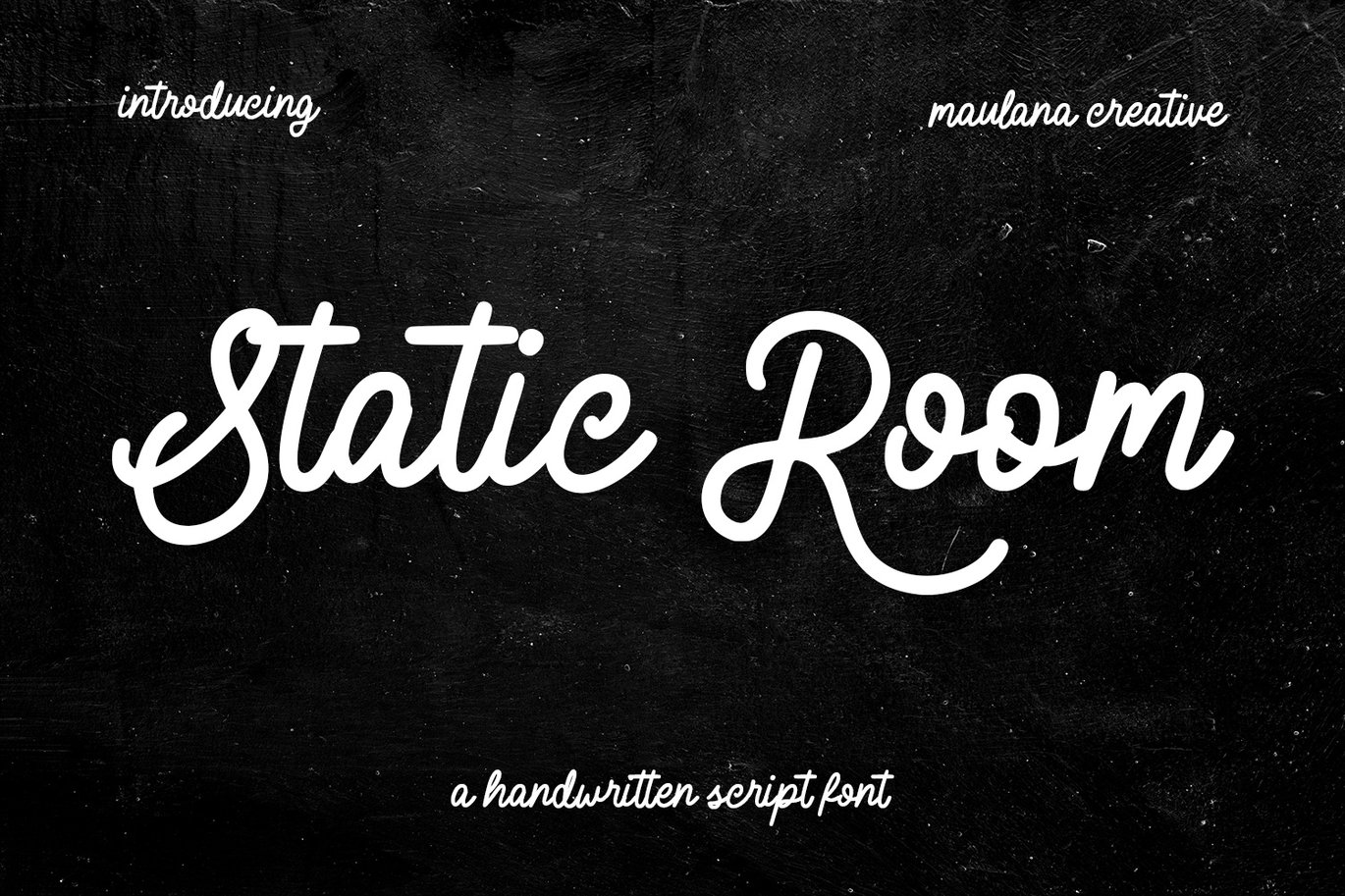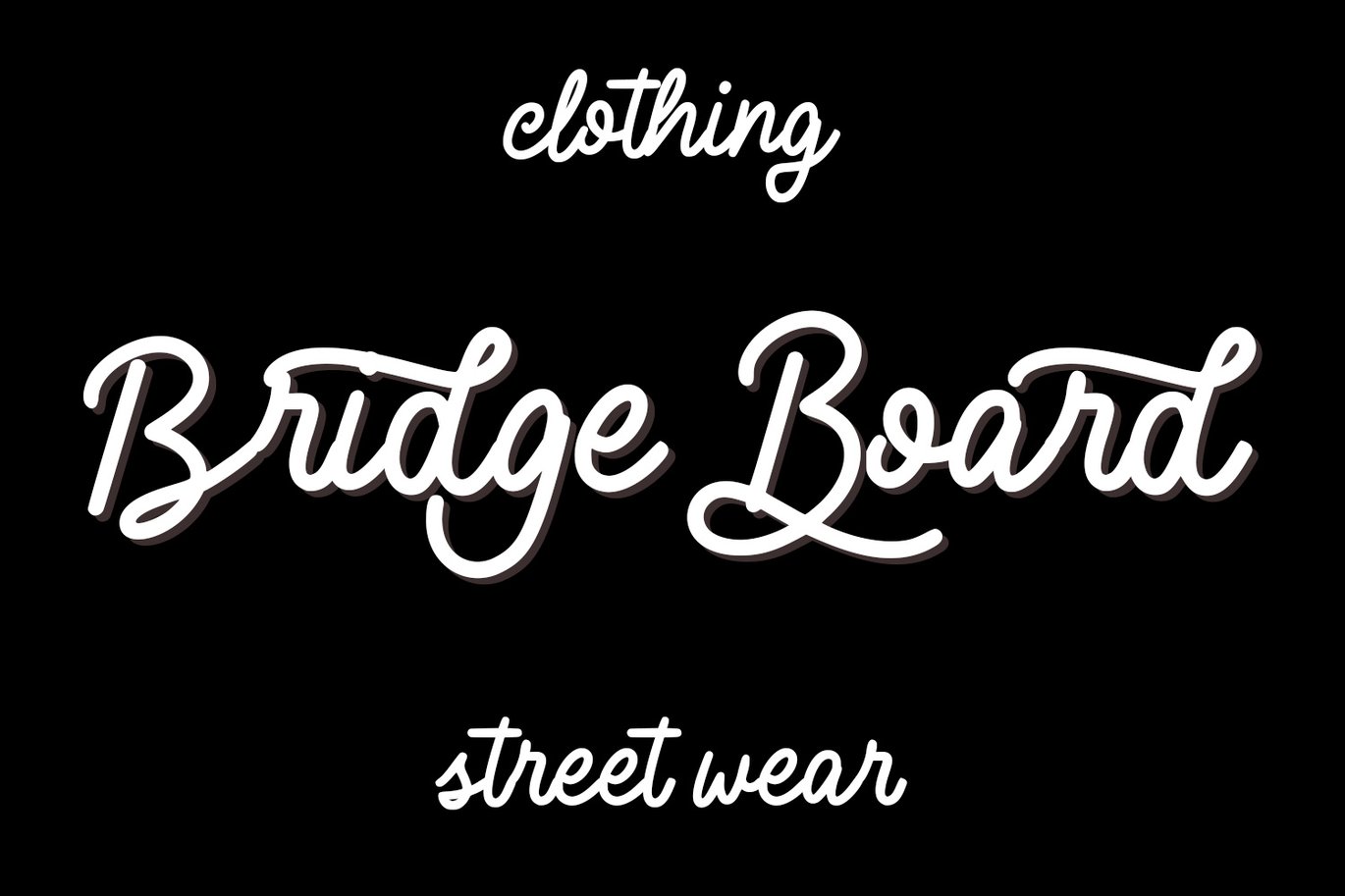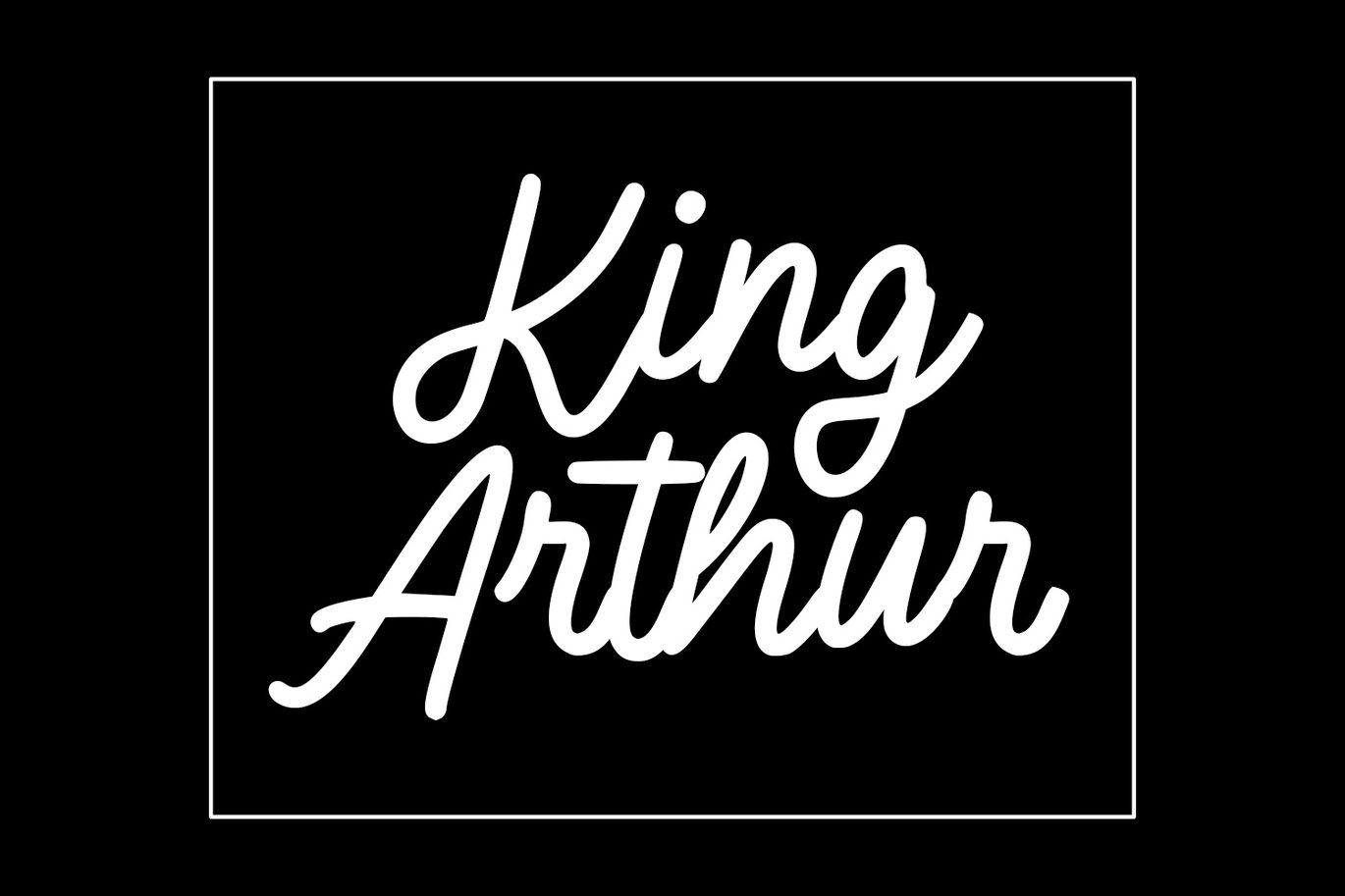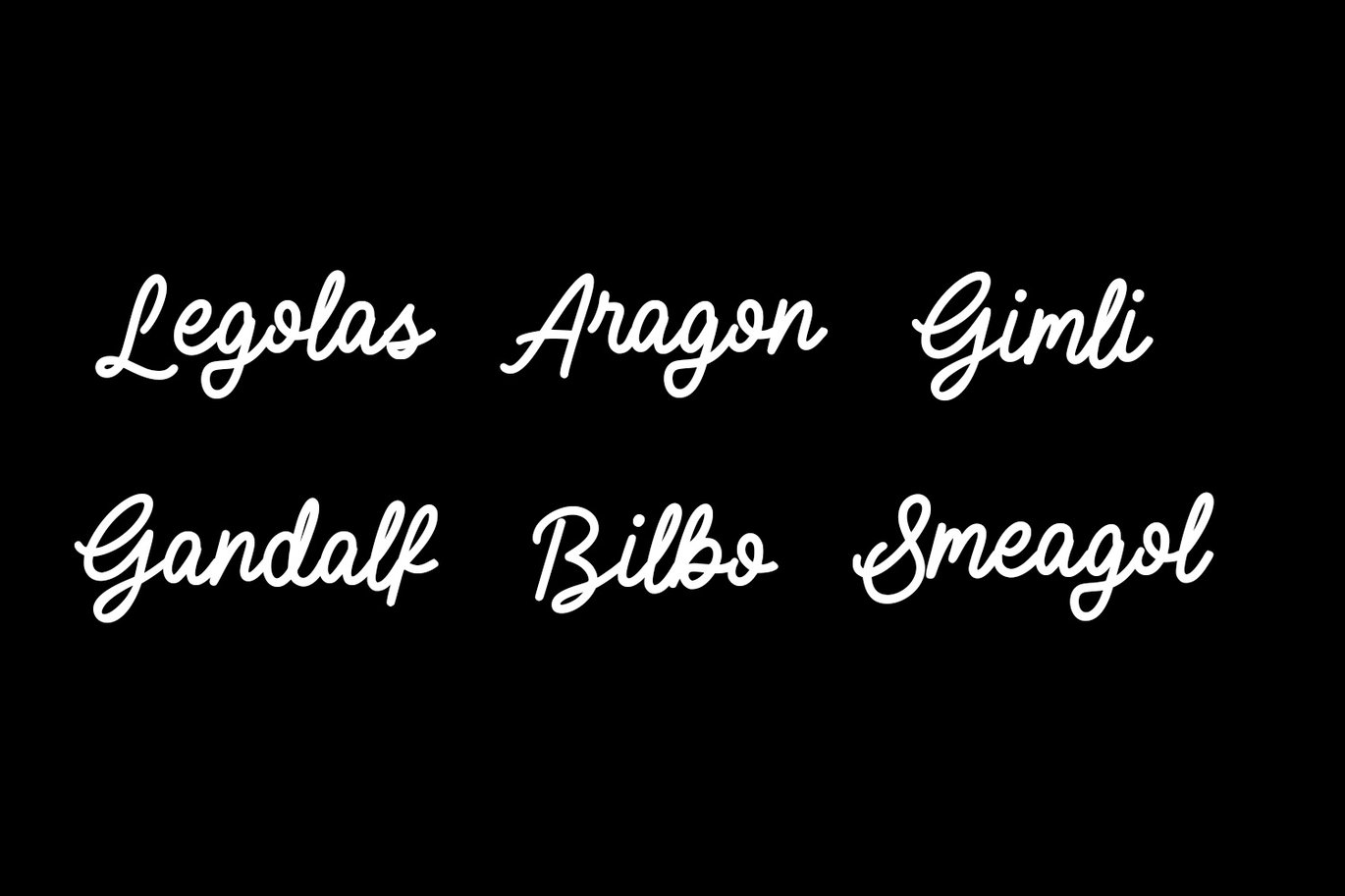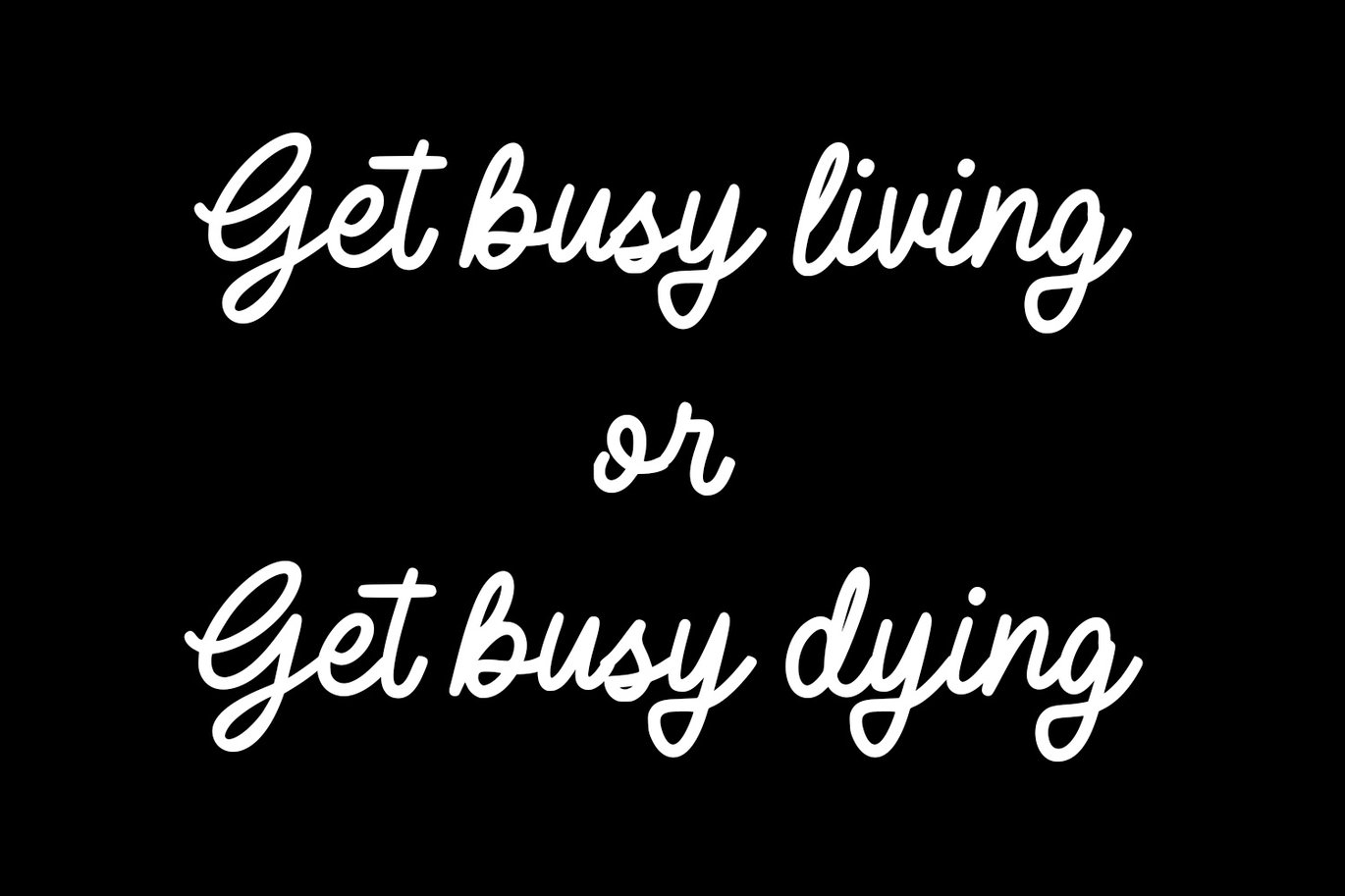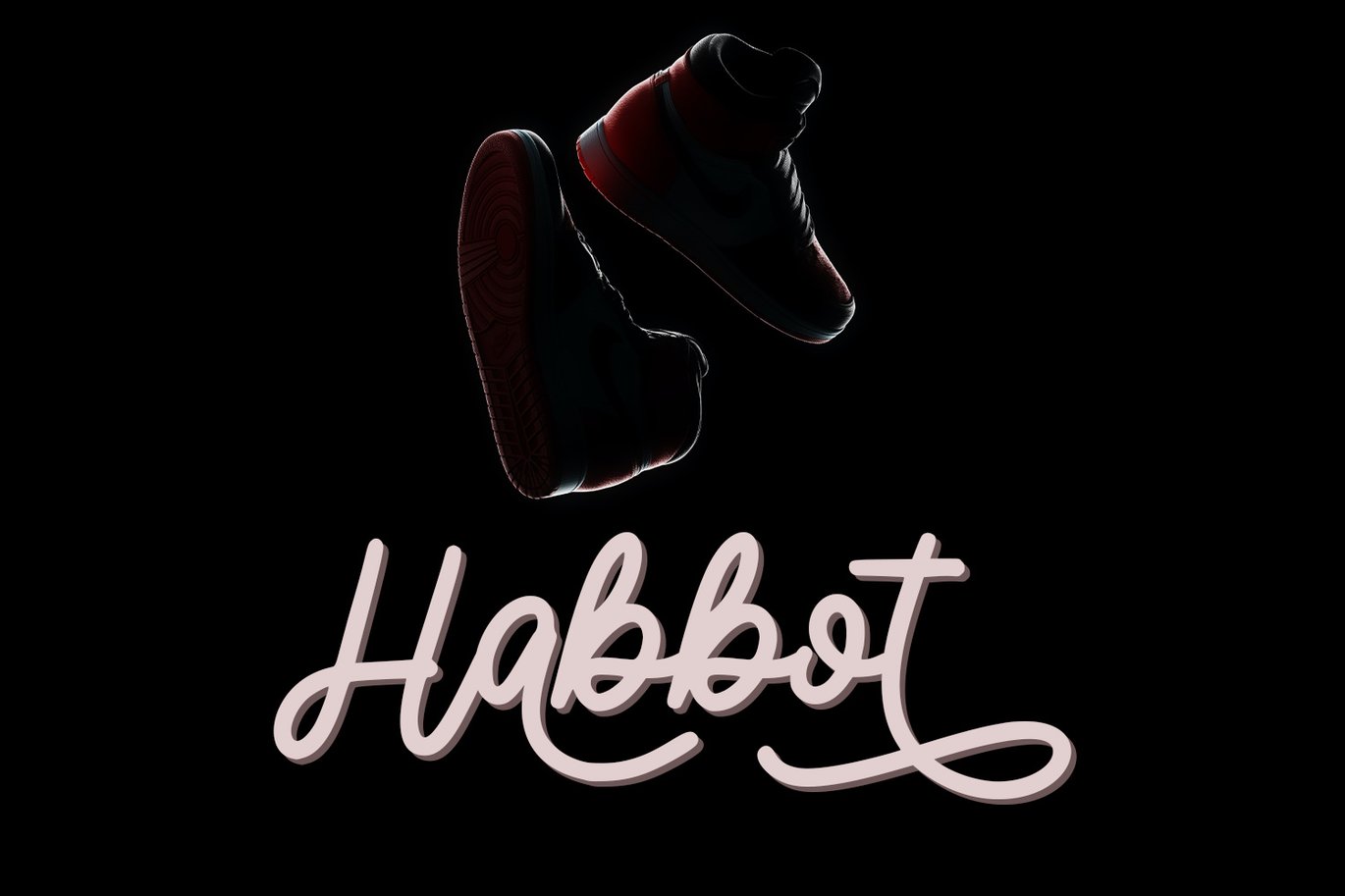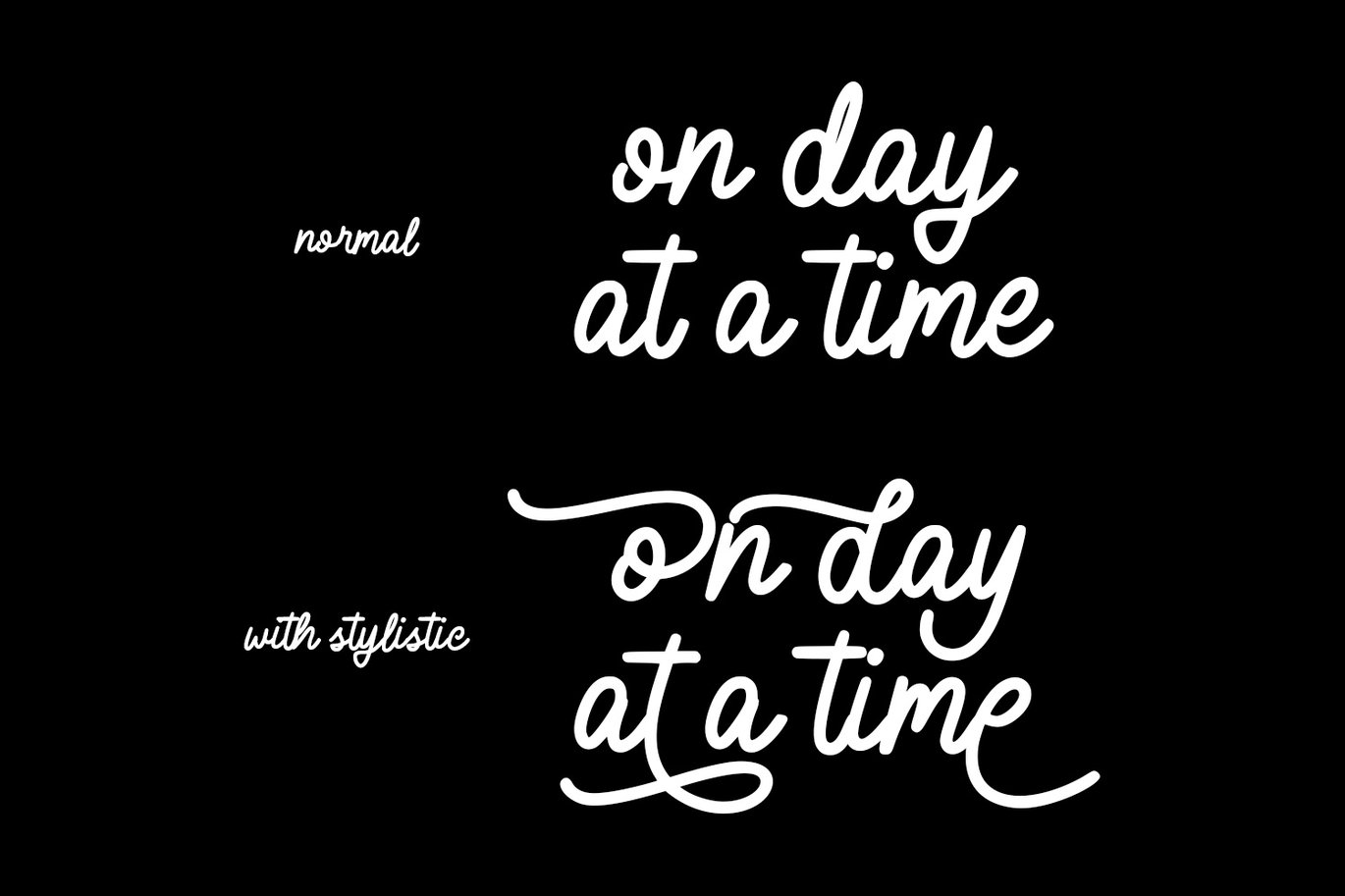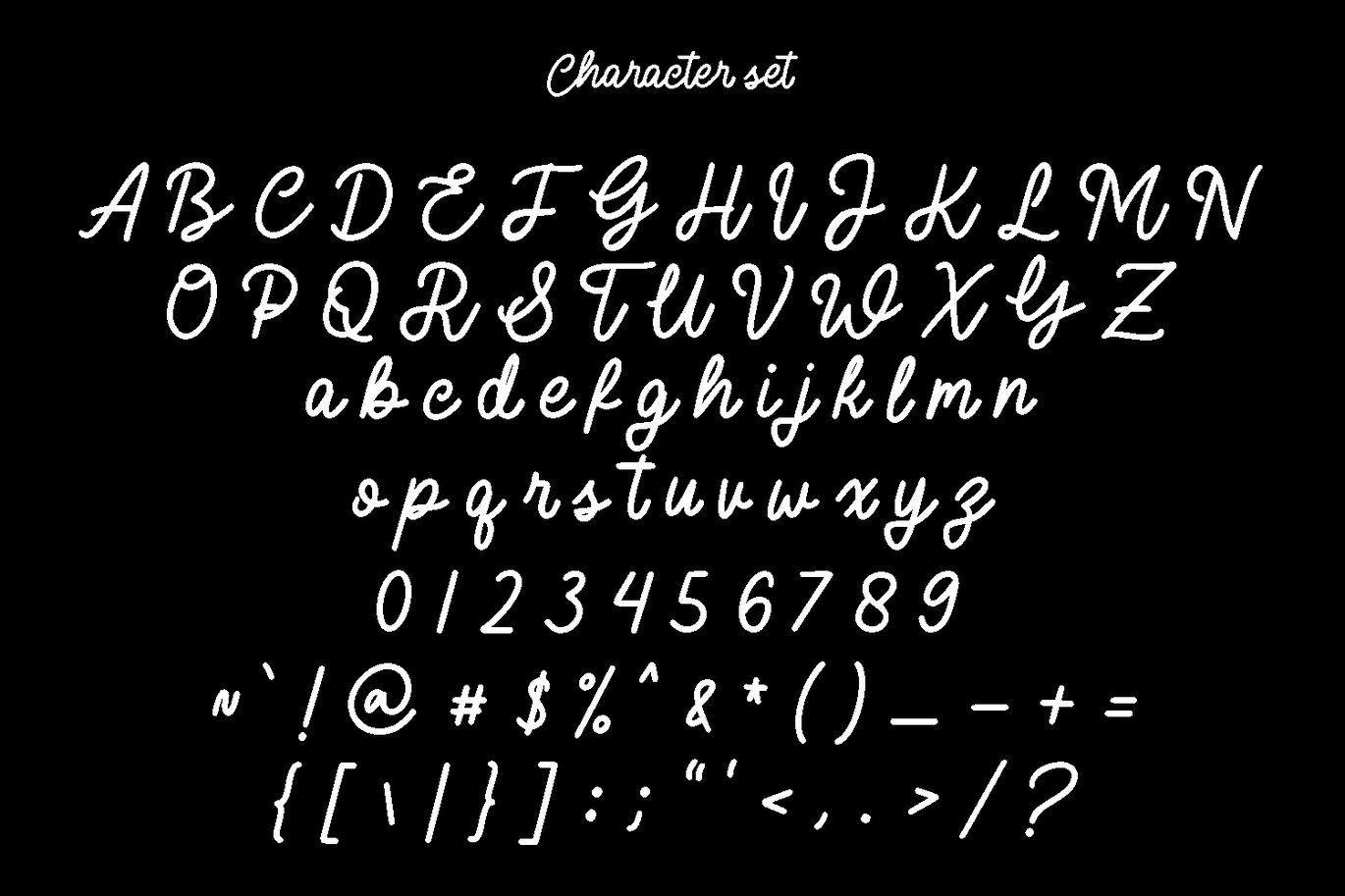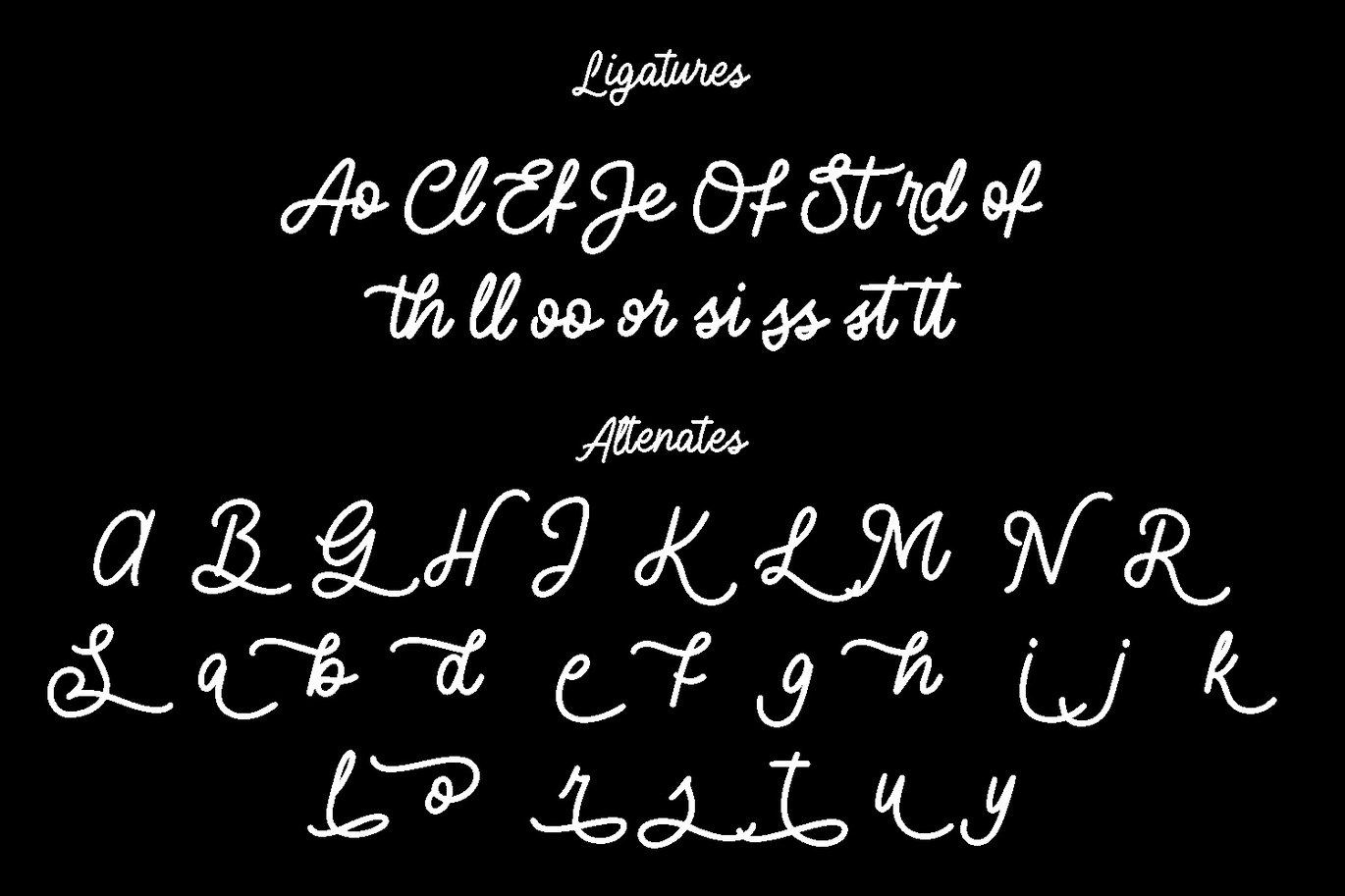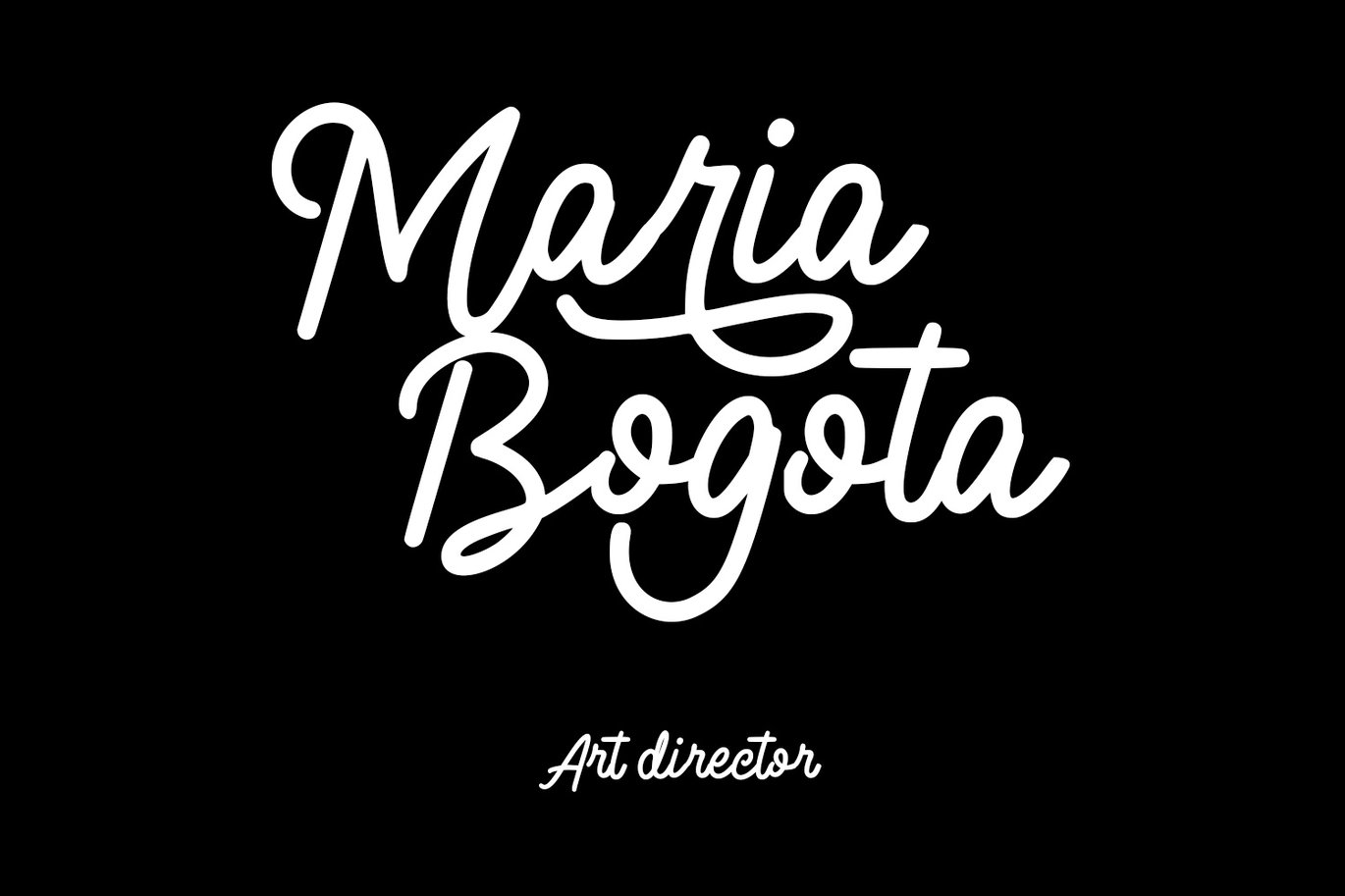
Static Room Cursive Script Font
Static Room is a retro cursive script font. With bold mono-line consist stroke, fun character with a bit of ligatures and alternates. To give you an extra creative work. Static Room font support multilingual more than 100+ language. This font is good for logo design, Social media, Movie Titles, Books Titles, a short text even a long text letter and good for your secondary text font with sans or serif. Make a stunning work with Static Room font.